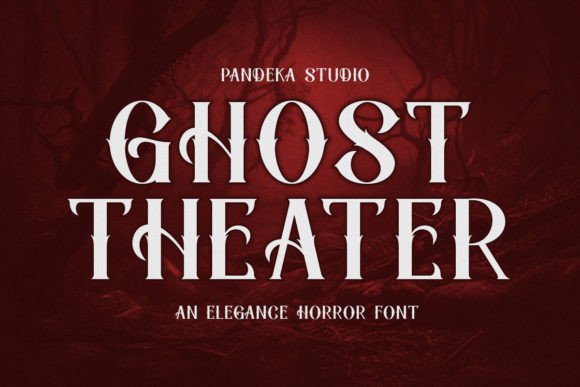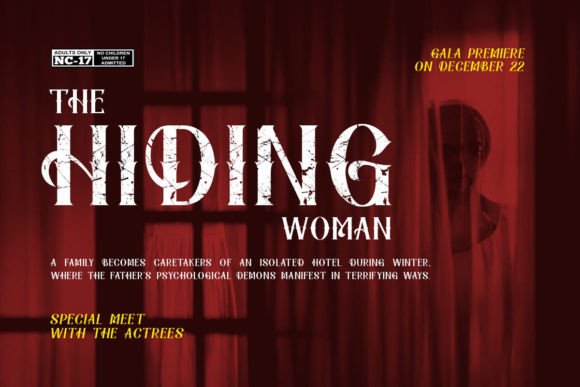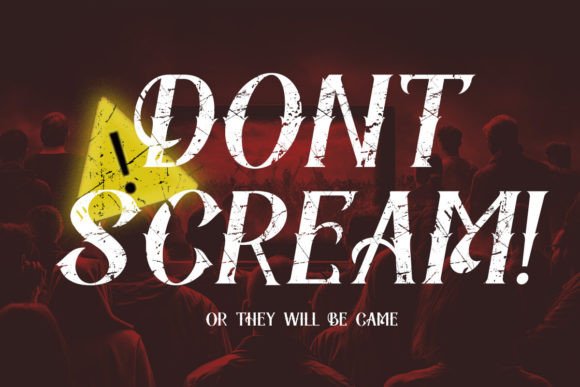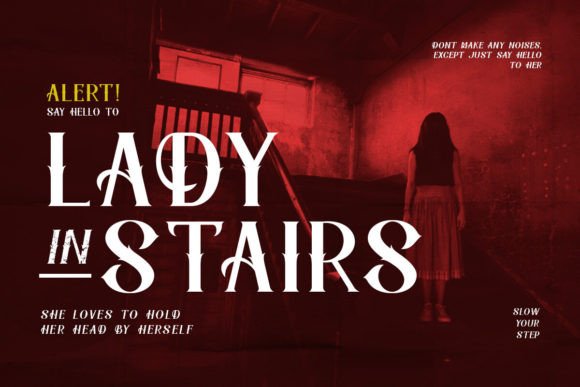
Ghost Theater Font: Sinister Display Font for Spine-Chilling Designs
About the Ghost Theater Font
Unleash your creativity with Ghost Theater Font, a versatile font perfect for a wide range of applications. Introducing Ghost Theater – A Gothic and Sharp Horror Font
Step into the dark and mysterious world of Ghost Theater, the perfect font for all your gothic and horror-themed designs. Inspired by the eerie atmosphere of haunted mansions and the spine-chilling ambiance of Halloween nights, Ghost Theater brings a sharp, sinister edge to every letter.
Ghost Theater excels in headline applications, posters, and branding projects requiring a strong, dramatic presence. Its sharp serifs and gothic style command attention, making it ideal for horror-themed projects, gothic-inspired logos, or dark fantasy game design. Avoid using it for body text or long paragraphs; its high contrast and intricate details hinder readability in smaller sizes.
The font’s core personality is bold and sinister. It evokes a sense of mystery and intrigue. For effective pairings, consider a clean sans-serif like Montserrat or a neutral serif like Playfair Display for contrast. These pairings balance Ghost Theater’s dramatic weight, providing legibility where needed.
A geometric sans-serif like Futura could also work for a more modern, edgy feel, while a script font like Great Vibes might add an unexpected layer of elegance for specific applications, if carefully balanced.
Ghost Theater Font Usage Examples
Ghost Theater Font Example